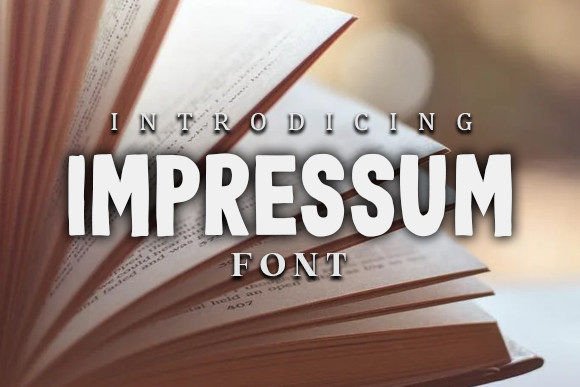
Unveil the Enigmatic Charm of Impressum: A Font That Echoes the Allure of Wanted Posters
In the realm of typography, Impressum emerges as a captivating display font, echoing the intrigue and allure of classic wanted posters. Its meticulously crafted characters exude an air of mystery, beckoning you to embark on a journey of creative exploration. Let Impressum ignite your imagination and transform your designs into captivating masterpieces.
With its bold and distinctive strokes, Impressum commands attention, captivating your audience from the very first glance. Each letterform is a work of art, meticulously designed to evoke a sense of intrigue and drama. Whether you're crafting posters, flyers, or eye-catching headlines, Impressum will elevate your designs to new heights, leaving a lasting impression on all who behold it.
Step into a world where the ordinary becomes extraordinary. Impressum invites you to unleash your creativity and embrace the power of typography. Its versatility knows no bounds, seamlessly adapting to a myriad of design projects. From vintage-inspired creations to modern and edgy concepts, Impressum effortlessly blends with your vision, adding a touch of mystery and allure that will leave your audience spellbound.
With Impressum as your trusted design companion, you'll unlock a treasure trove of possibilities. Its captivating charm will add a touch of intrigue to your posters, flyers, and social media graphics. Unleash your inner storyteller and craft captivating headlines that demand attention. Let Impressum be your secret weapon, transforming ordinary designs into captivating masterpieces.